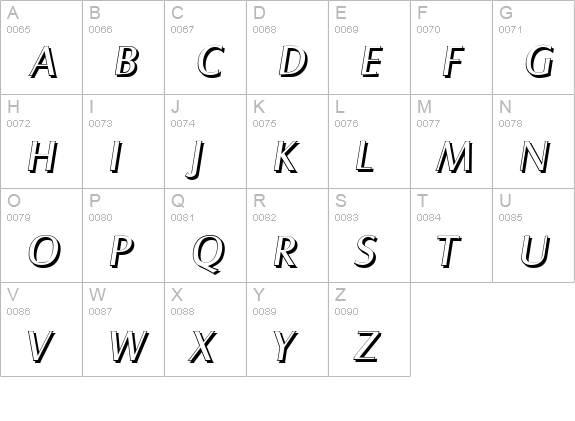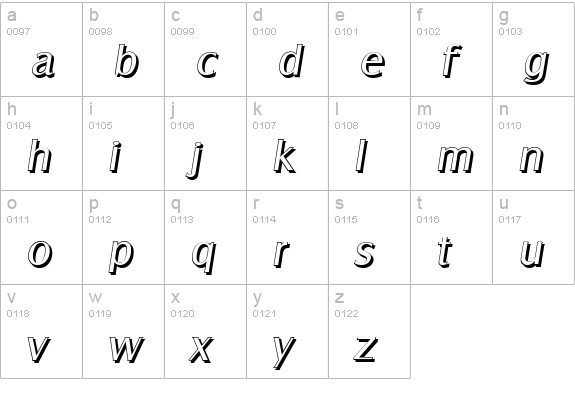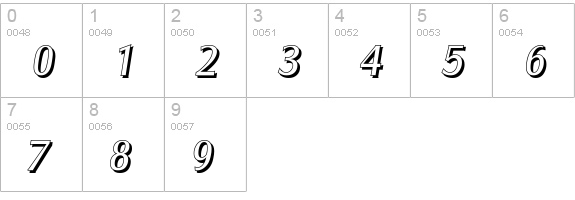
SalzburgShadow-Italic is a distinctive, italic variant in the SalzburgShadow typeface family \xE2\x80\x94 well suited to design and typography projects.
The SalzburgShadow-Italic font is a stylish and elegant typeface that exudes sophistication and charm. Its intricate design features delicate shadow effects that add depth and dimension to each character, creating a unique and eye-catching look. Whether used for headings, titles, or body text, this font is sure to make a lasting impression. What's even better is that the SalzburgShadow-Italic font is completely free! You can download it at FontsMarket.com with ease, allowing you to enhance your design projects without breaking the bank. So why wait? Give your designs a touch of class with the SalzburgShadow-Italic font today!